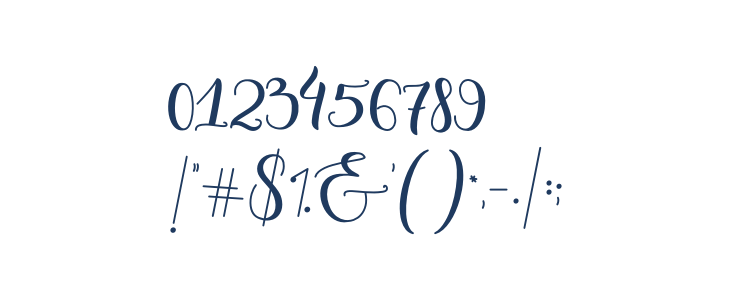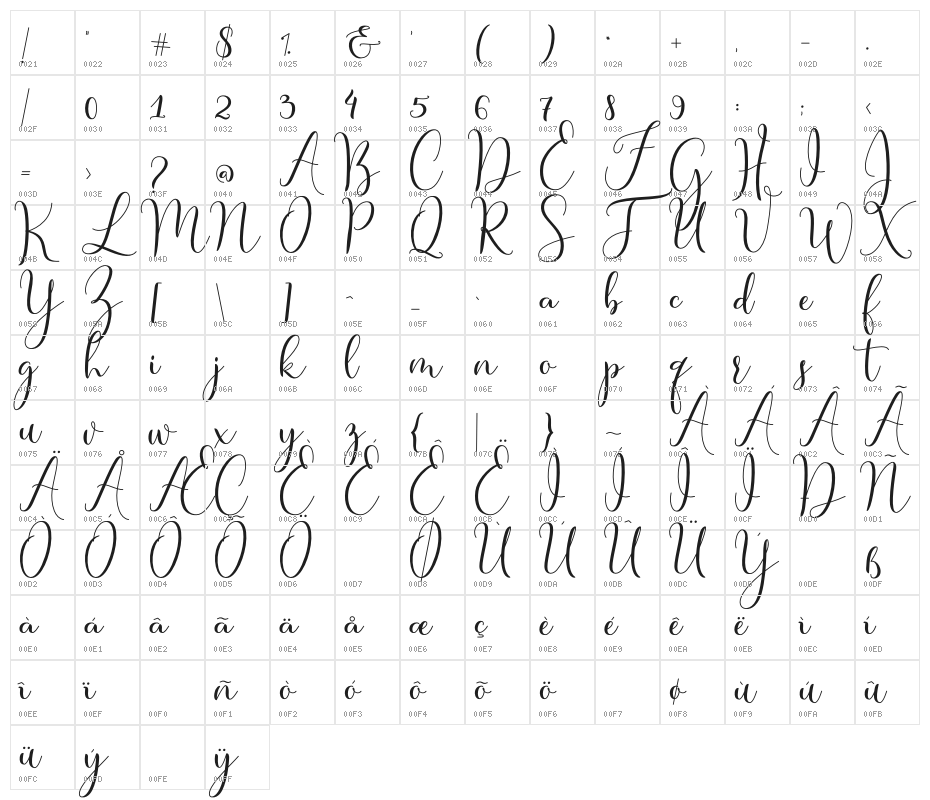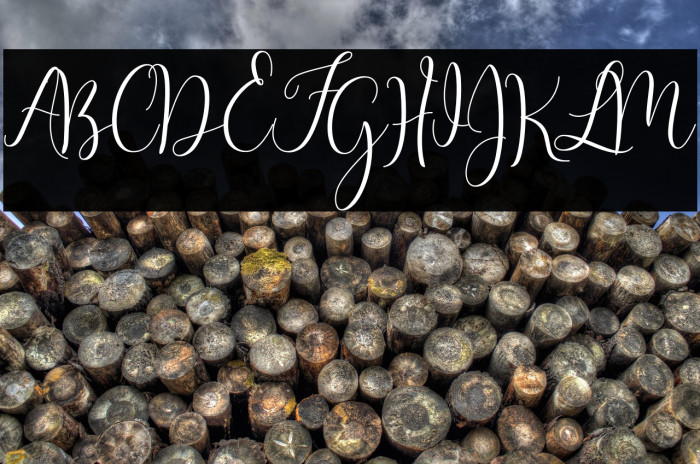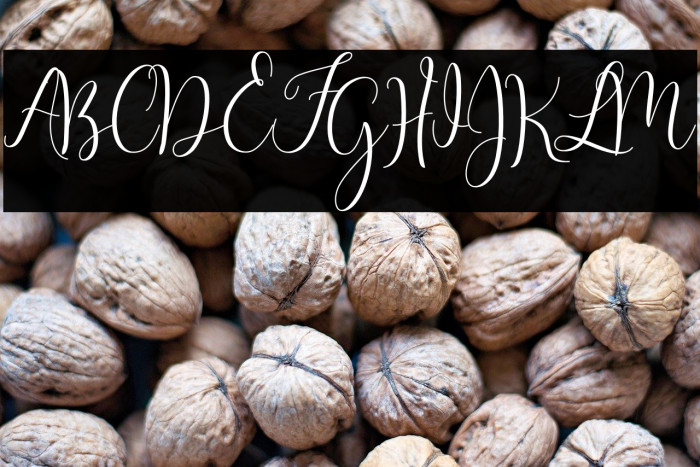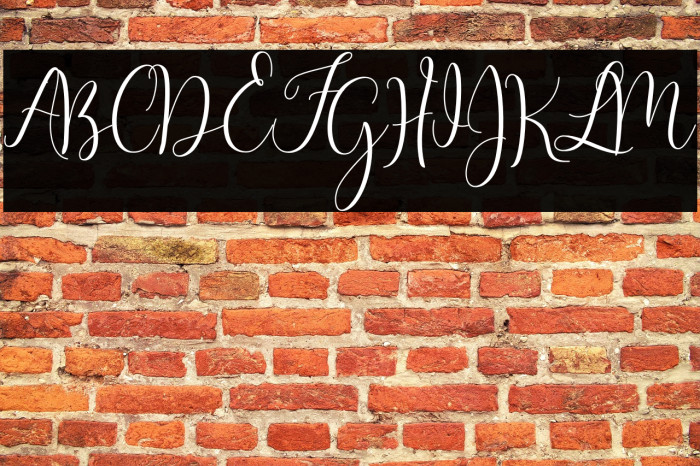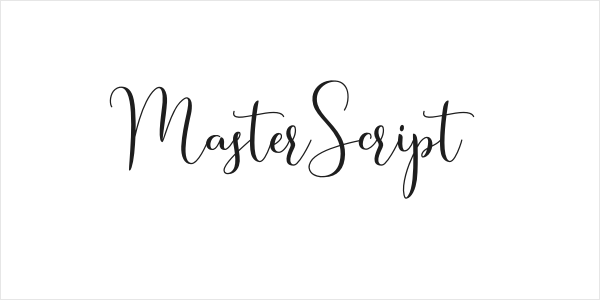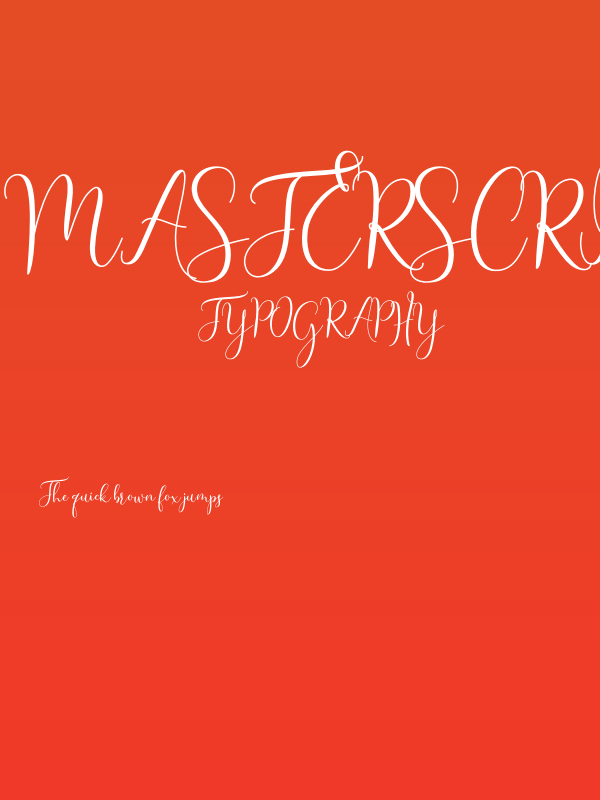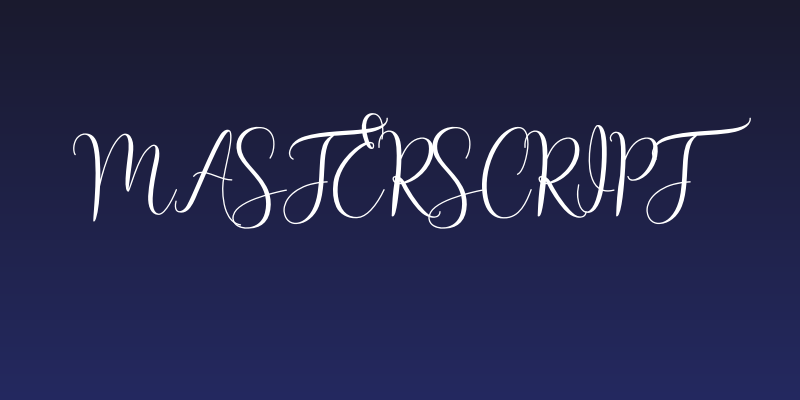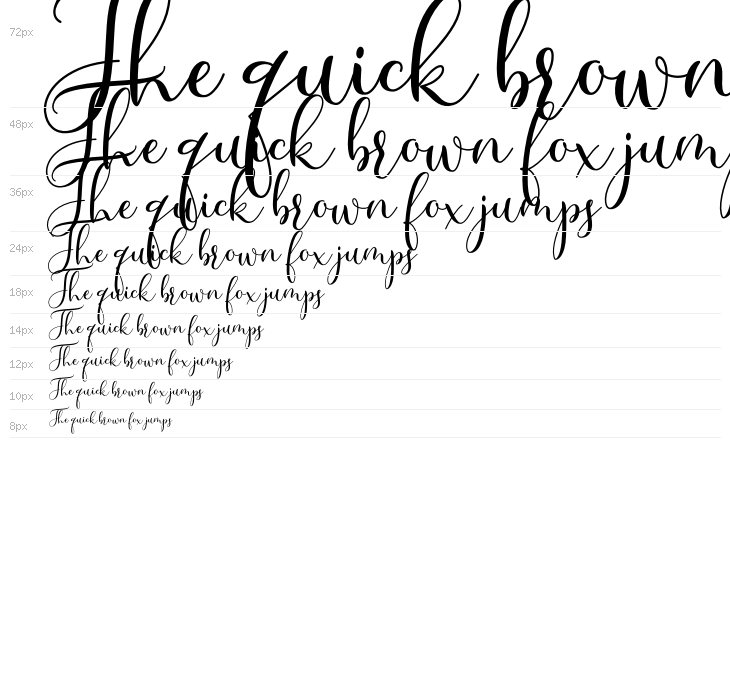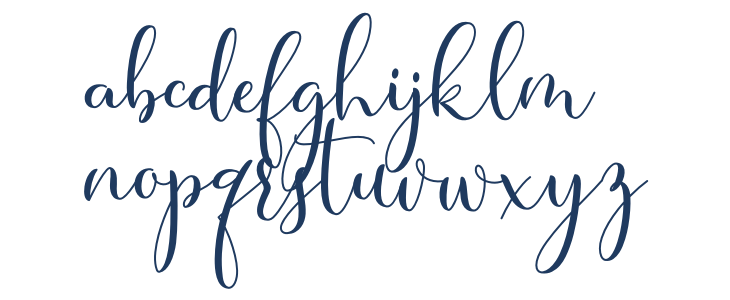
MasterScript Font
MasterScript Description
This font exudes elegance and sophistication with its flowing, cursive style. The uppercase letters are characterized by their tall, graceful loops and sweeping tails, giving a sense of movement and fluidity. The lowercase letters maintain a consistent rhythm, with smooth connections between each character, enhancing readability while retaining an artistic flair. The numerals are distinct and stylish, complementing the overall script aesthetic. Special characters are thoughtfully designed, integrating seamlessly with the letterforms. This font is perfect for projects that require a touch of elegance and personal expression.
| Overall Style | Elegant, Artistic |
| Use Case | Logos, Invitations, Decorative text |
| Proposed Projects | Ideal for wedding invitations, elegant branding, personal stationery, and artistic quotes. |